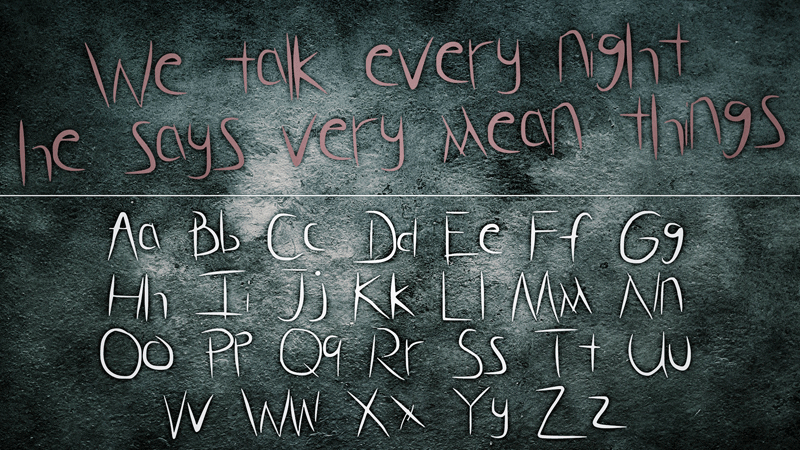
"Glass Hand" is inspired by my personal handwriting, which others often said was naturally creepy. I figured "Hey, why not make a font of it?" This is the final product. Do not resell. Do not claim it as your own. www.aaronglass.me |